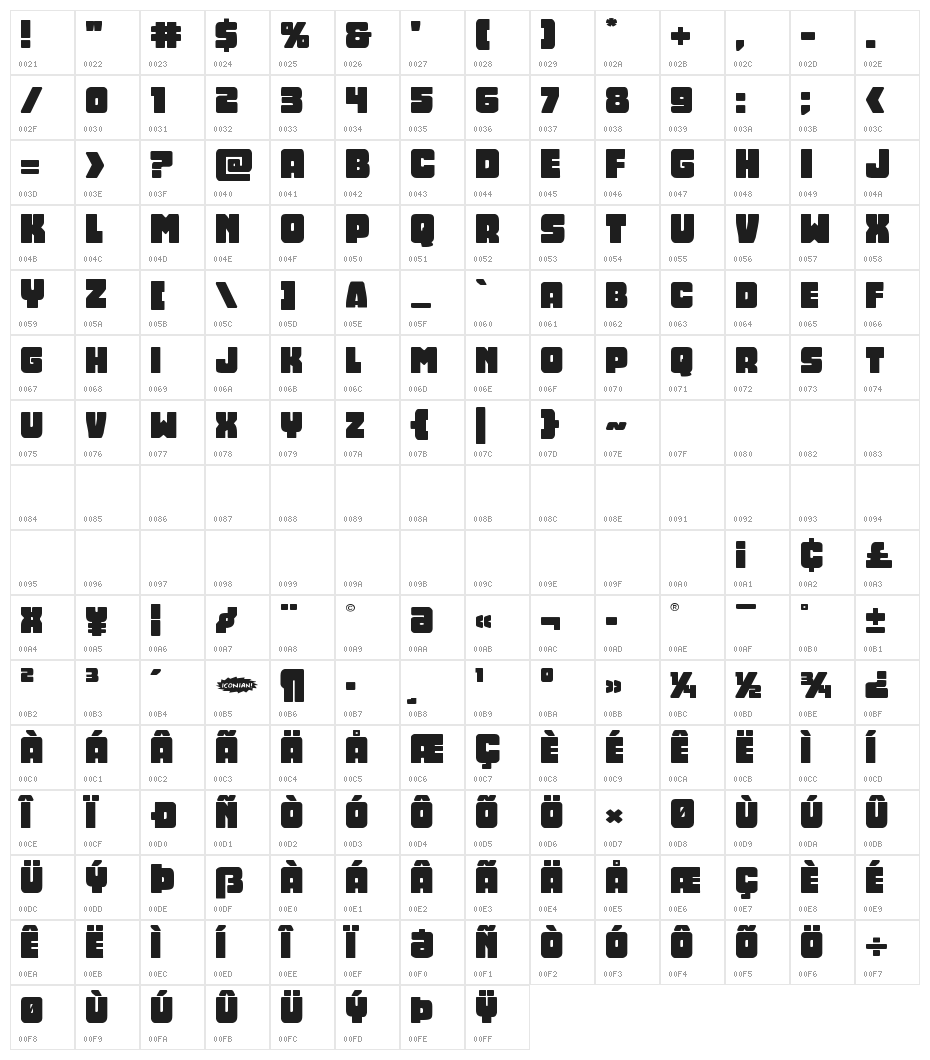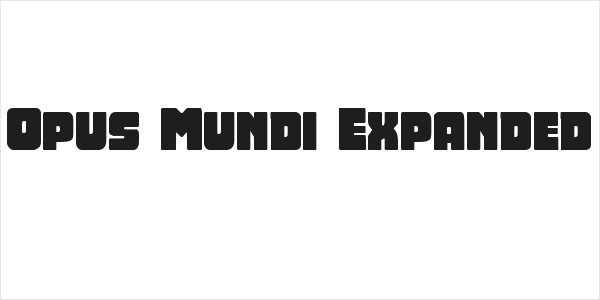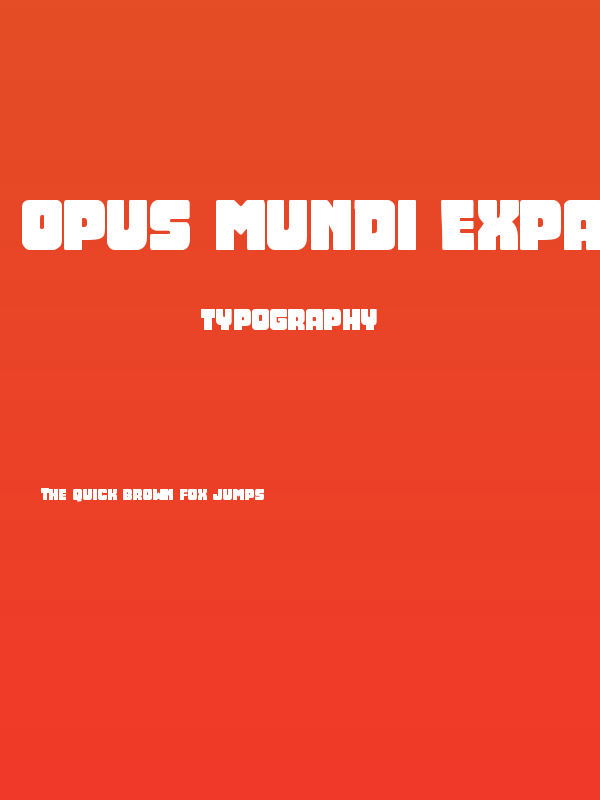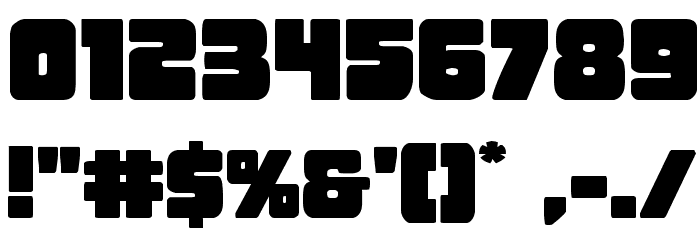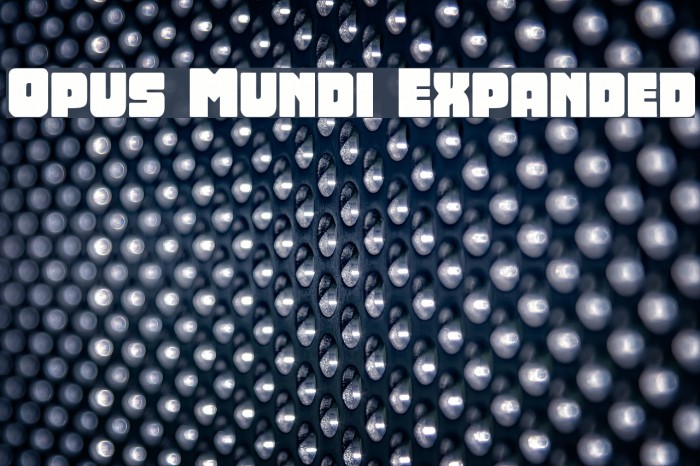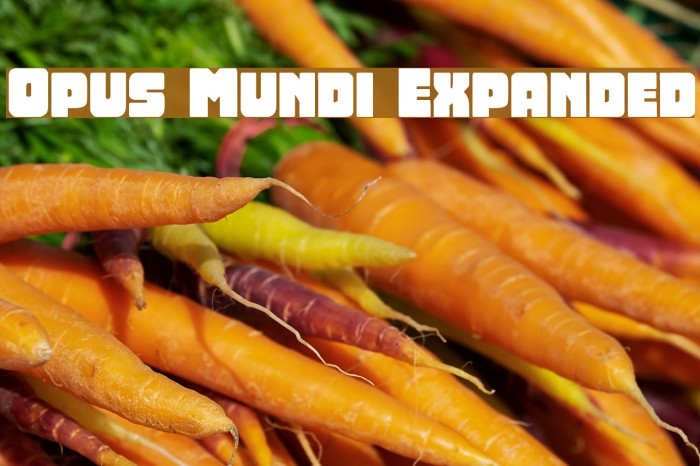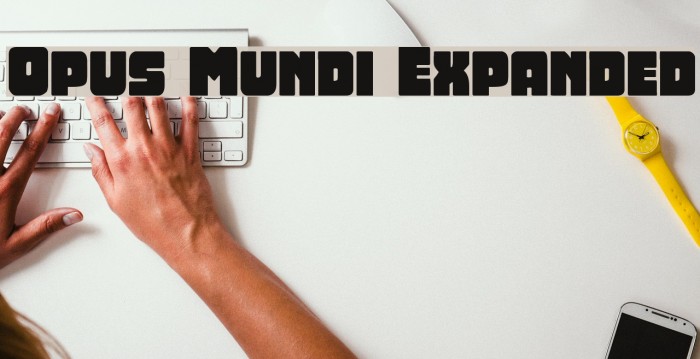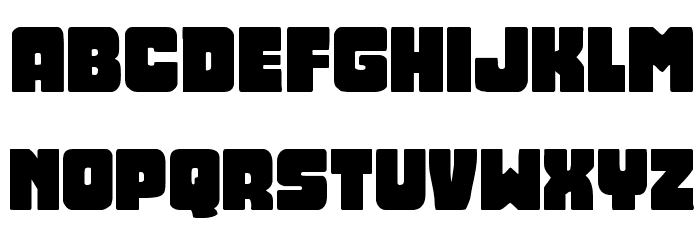
Opus Mundi Expanded Font
Opus Mundi Expanded Description
This font features a bold and robust design with thick, blocky characters that convey a strong presence. The letters are uniformly wide, creating a sense of stability and strength. The edges are slightly rounded, adding a touch of softness to the otherwise solid appearance. The font's expanded width allows for excellent readability, making it suitable for attention-grabbing headlines and impactful designs. The numbers and special characters maintain the same bold style, ensuring consistency across all text elements. This font's unique style is ideal for projects that require a commanding and memorable visual impact.
| Proposed Projects | Ideal for headlines, posters, branding, and any design requiring a bold statement. |